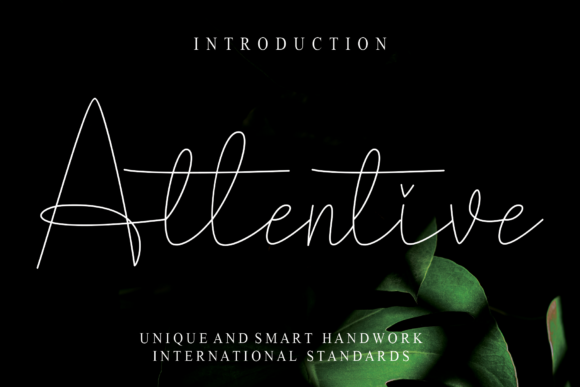
The Attentive Font: A Game-Changer for Fashion Branding and Editorial Designs
I’ll never forget the time I was working on a fashion branding project, and my client asked me to create a logo that exuded elegance and sophistication. I spent hours scouring the internet for the perfect font, but nothing seemed quite right. That was until I stumbled upon the Attentive font. This thin, handwritten font has been a game-changer for my design work, and I’m excited to share its beauty with you.
I’ve had the pleasure of working with the Attentive font on several projects, and here’s what I think:
- ✨ Readability: Despite being a thin font, Attentive is remarkably readable, even at smaller sizes.
- ✅ Elegant curves: The smooth curves of this font give it a delicate, stylish feel that’s perfect for fashion branding.
- 💃 Versatility: Attentive works beautifully in a variety of design contexts, from editorial designs to packaging labels.
Of course, no font is perfect, and Attentive has a few quirks:
- 🤔 Limited contrast: While Attentive is a great font for body text, it can be a bit lacking in contrast, which may make it harder to read in certain situations.
- ⚠️ Glyph limitations: Some users have reported that the font’s glyph set is a bit limited, which can be a drawback for certain design projects.
The Story Behind Attentive
While the origins of Attentive are shrouded in mystery, it’s said that the font was inspired by the elegant handwriting of 19th-century calligraphers. The designer behind Attentive wanted to create a font that captured the essence of refined, sophisticated writing, and it’s clear that they’ve succeeded.
| What is the Attentive font best used for? | The Attentive font is perfect for fashion branding, editorial designs, and any project that requires a touch of elegance. |
| Does Attentive support OpenType features? | Yes, Attentive supports OpenType features like Stylistic Alternates, Glyphs, and Stylistic Sets. |